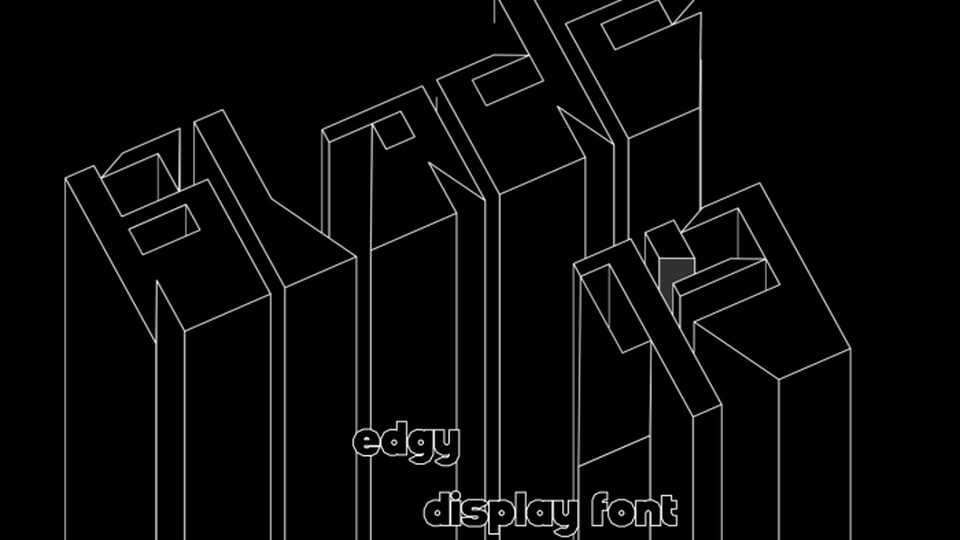
Download Blade43 font, a high-contrast, bold and edgy display typeface. With its strong and sharp look, Blade43 font is perfect for posters, album artworks, headlines and experimental typography.